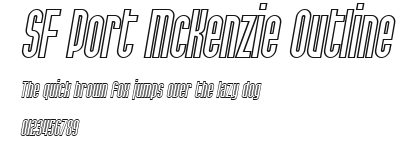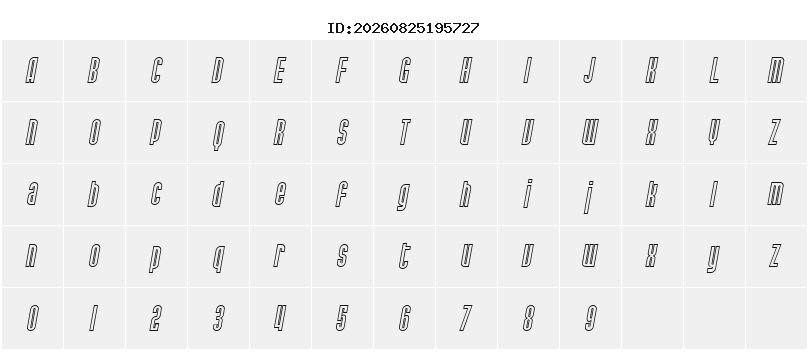
• Font Name: SF Port McKenzie Outline
• Font ID: SF Port McKenzie Outline Italic
• Full Font Name: SF Port McKenzie Outline Italic
• PostScript Name: SFPortMcKenzieOutlineItalic
• Character Count: 195
About SF Port McKenzie Outline.ttf
SF Port McKenzie Outline.ttf is a modern, elegant sans-serif font designed for ultimate readability and visual harmony. Perfect for branding, headlines, web design, and print materials.